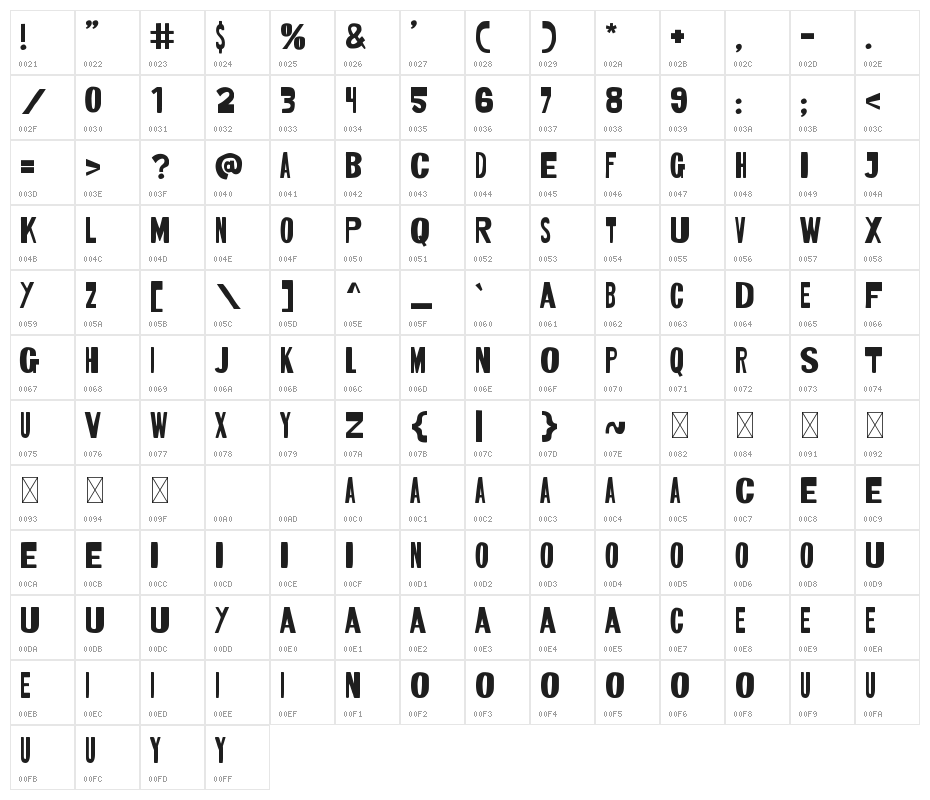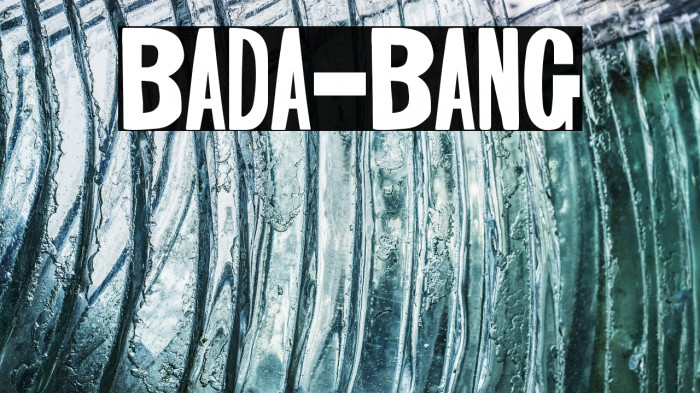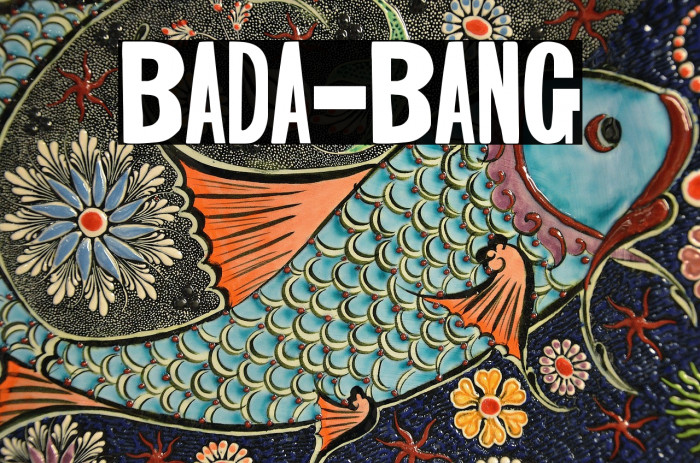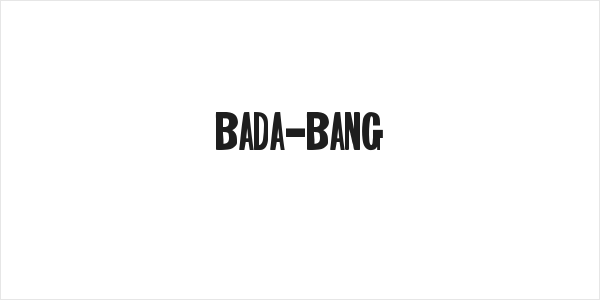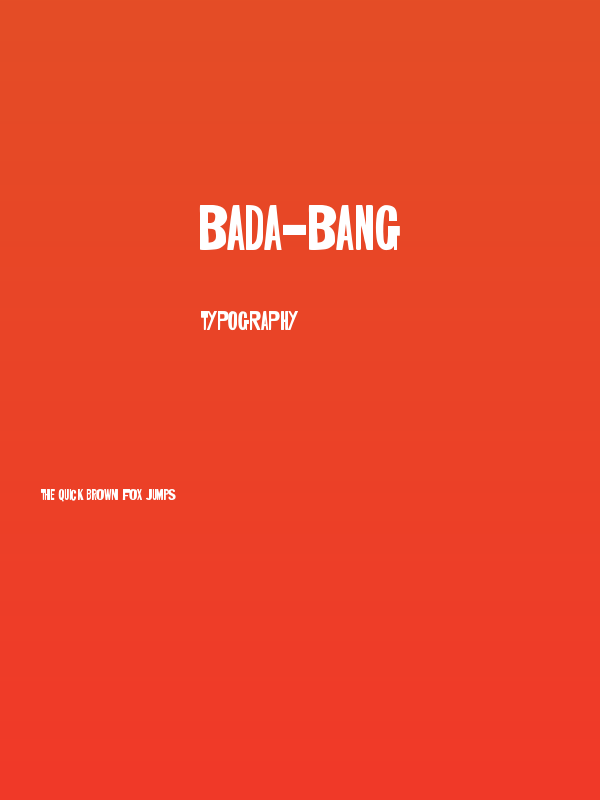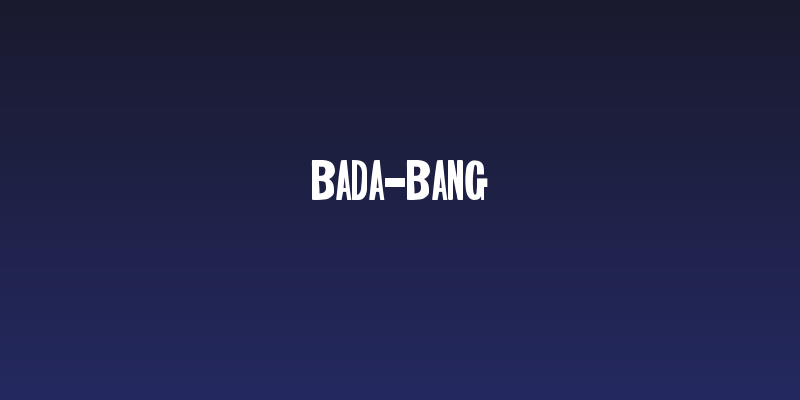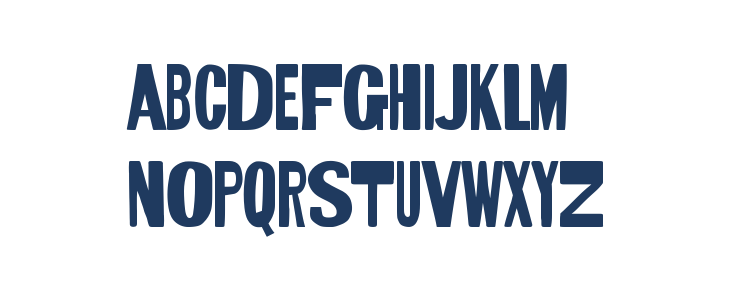
BADA-BANG Font
BADA-BANG Description
This font features bold, thick strokes with a playful and dynamic style. The characters are slightly irregular, giving them a hand-drawn, cartoonish appearance. The uppercase letters are particularly bold, with some characters having exaggerated curves and angles. The lowercase letters maintain the same boldness, ensuring consistency throughout the typeface. Numbers and special characters are equally bold, with a quirky touch that adds to the overall fun and energetic vibe. This font is perfect for grabbing attention and making a statement, ideal for projects that require a lively and engaging typeface.
| Overall Style | Playful, Energetic, Cartoonish |
| Use Case | Headlines, Posters, Branding |
| Proposed Projects | Ideal for comic books, children's books, playful branding, posters, and any project needing a fun, attention-grabbing typeface. |